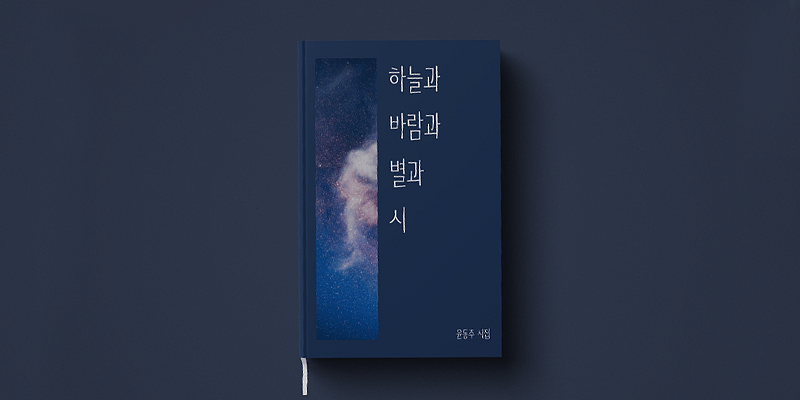
Sandoll BlueNight is a faint and sentimental font, suitable as a thin title text font. The overall structure is straight and clean, yet with a sentimental feeling. For formatting, the characters are slanted to a similar degree. It is a font that is suitable for the title of sentimental websites or other content.
Sandoll (산돌) is a leading font foundry in Korea. It has been developing nearly 600 fonts for about 40 years. The foundry has a variety of experiences of multi-language projects such as CJK development and matching Korean and other scripts.